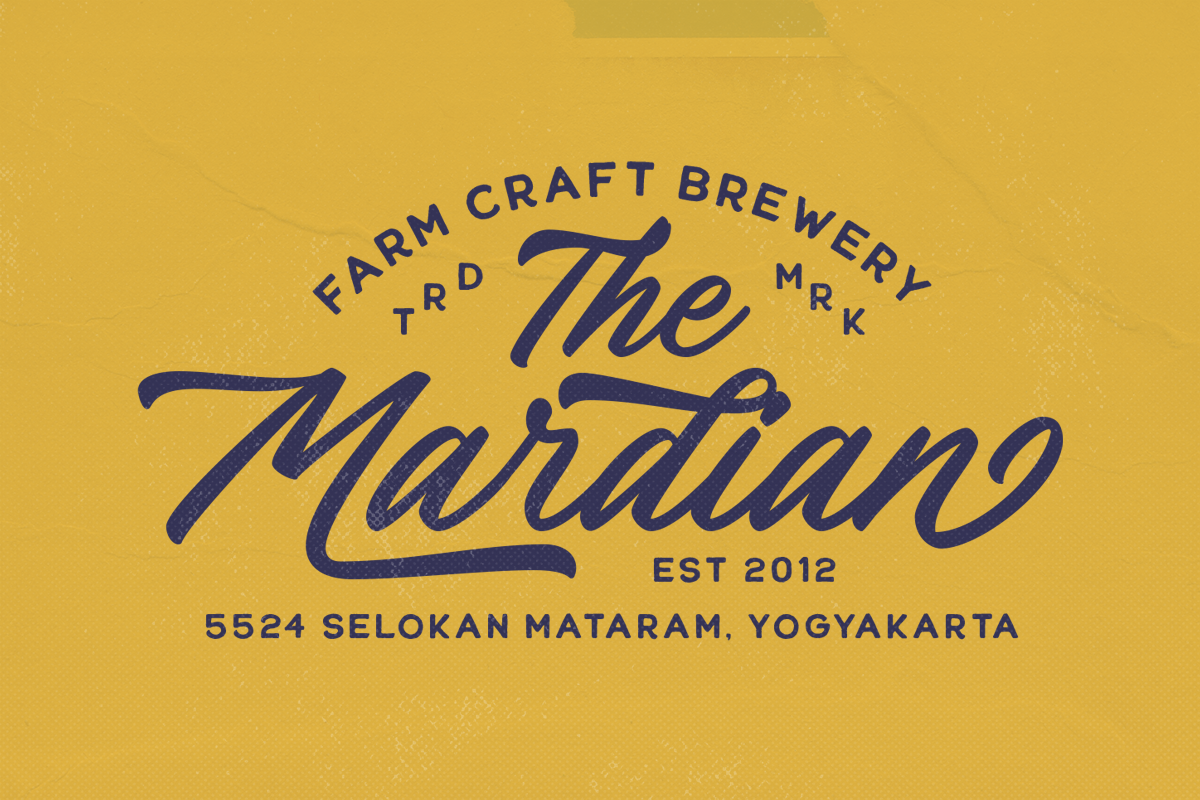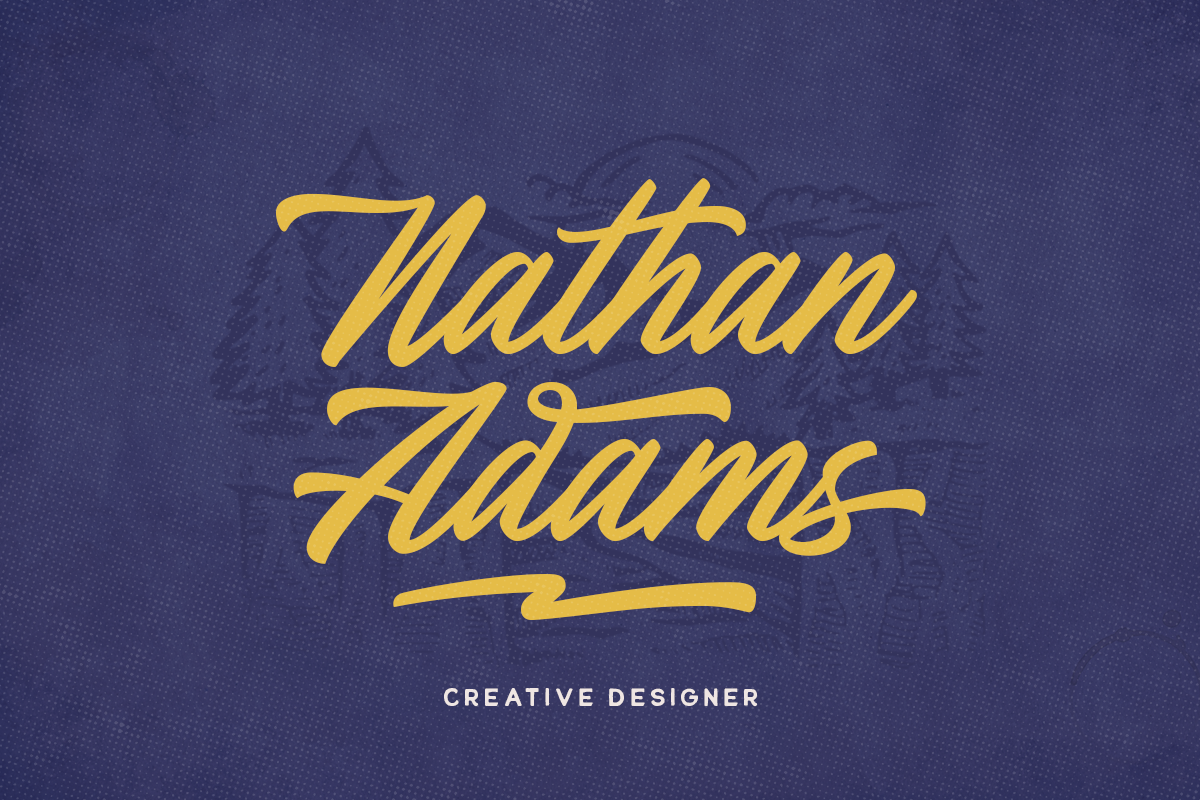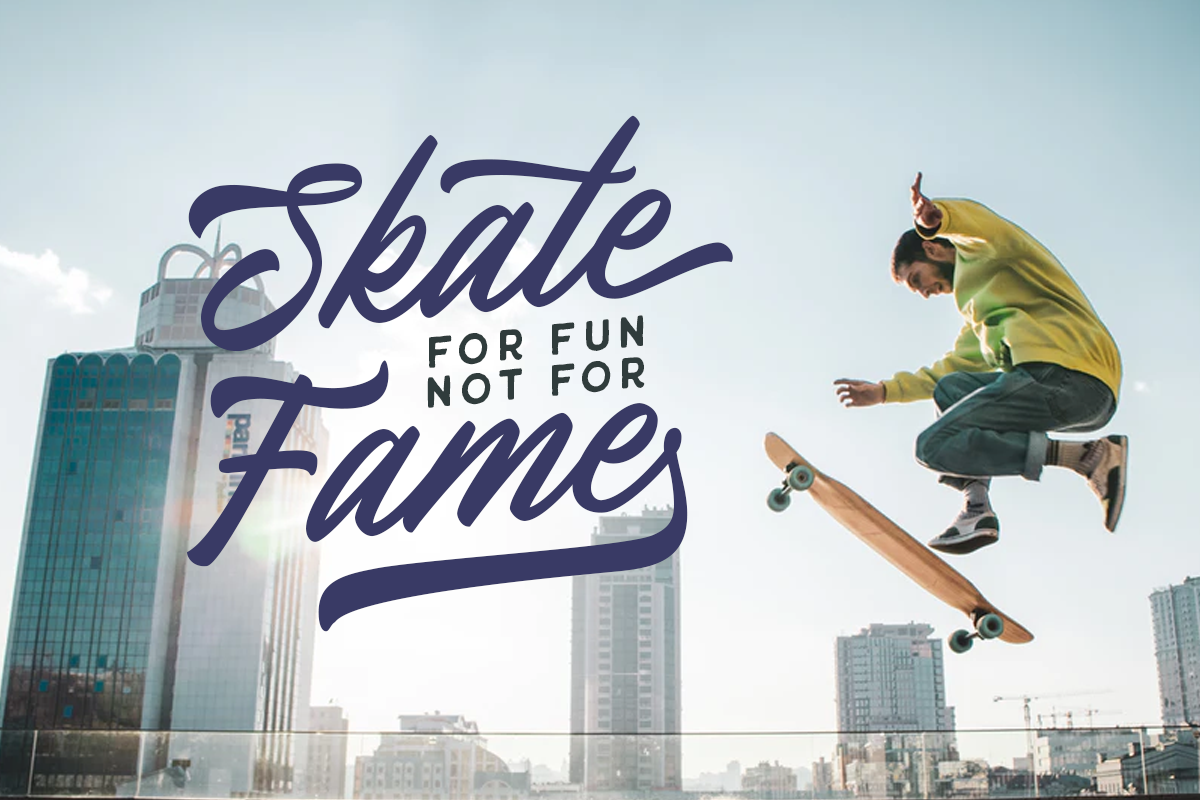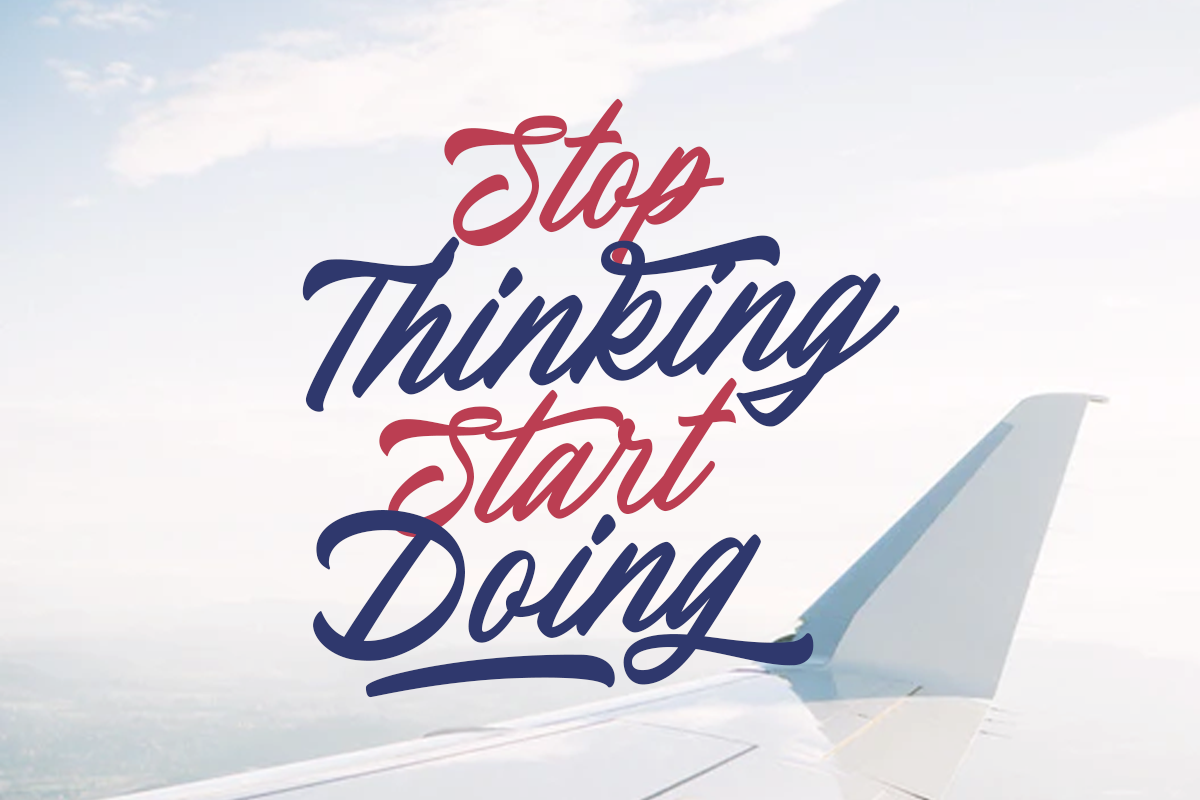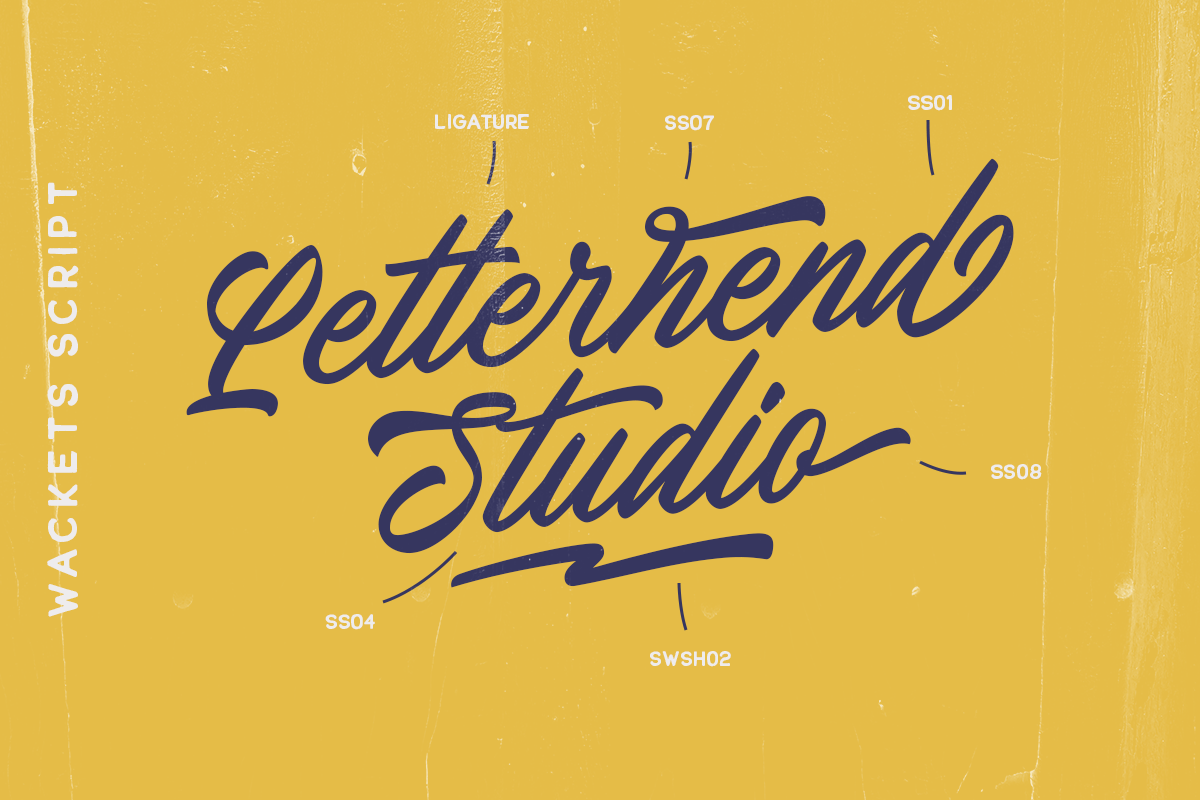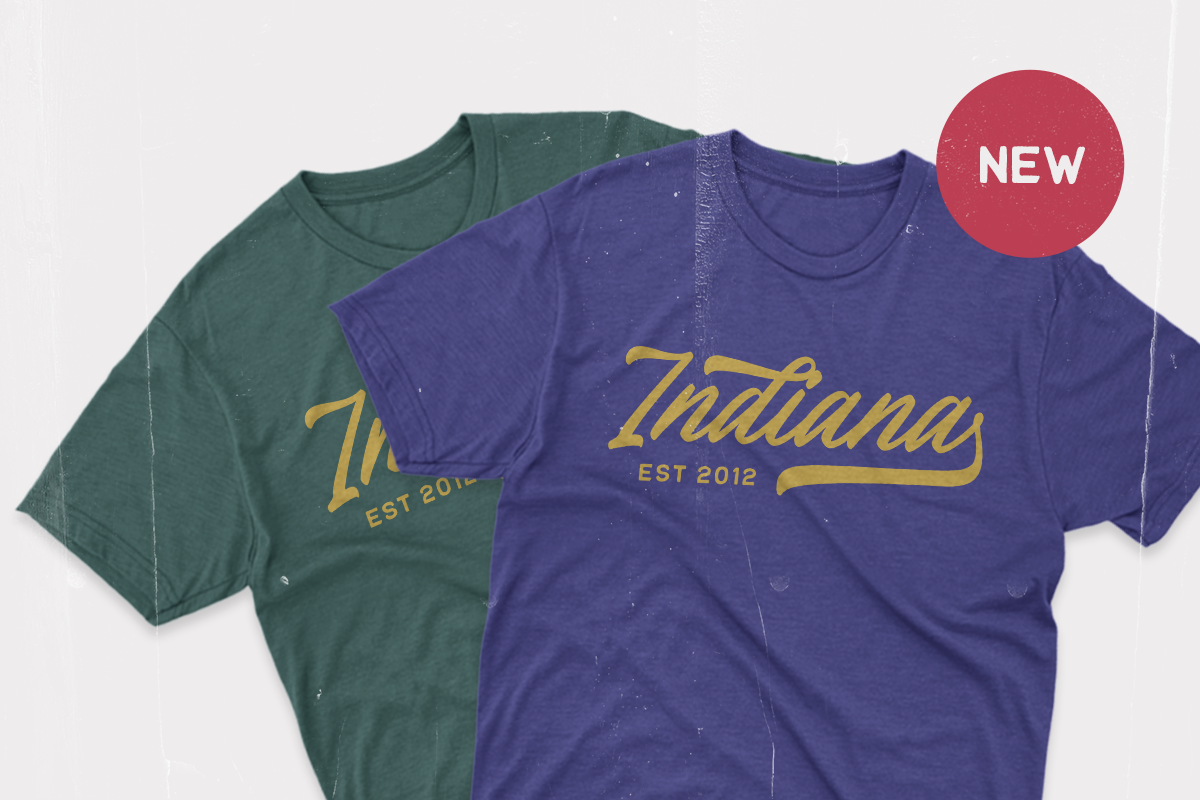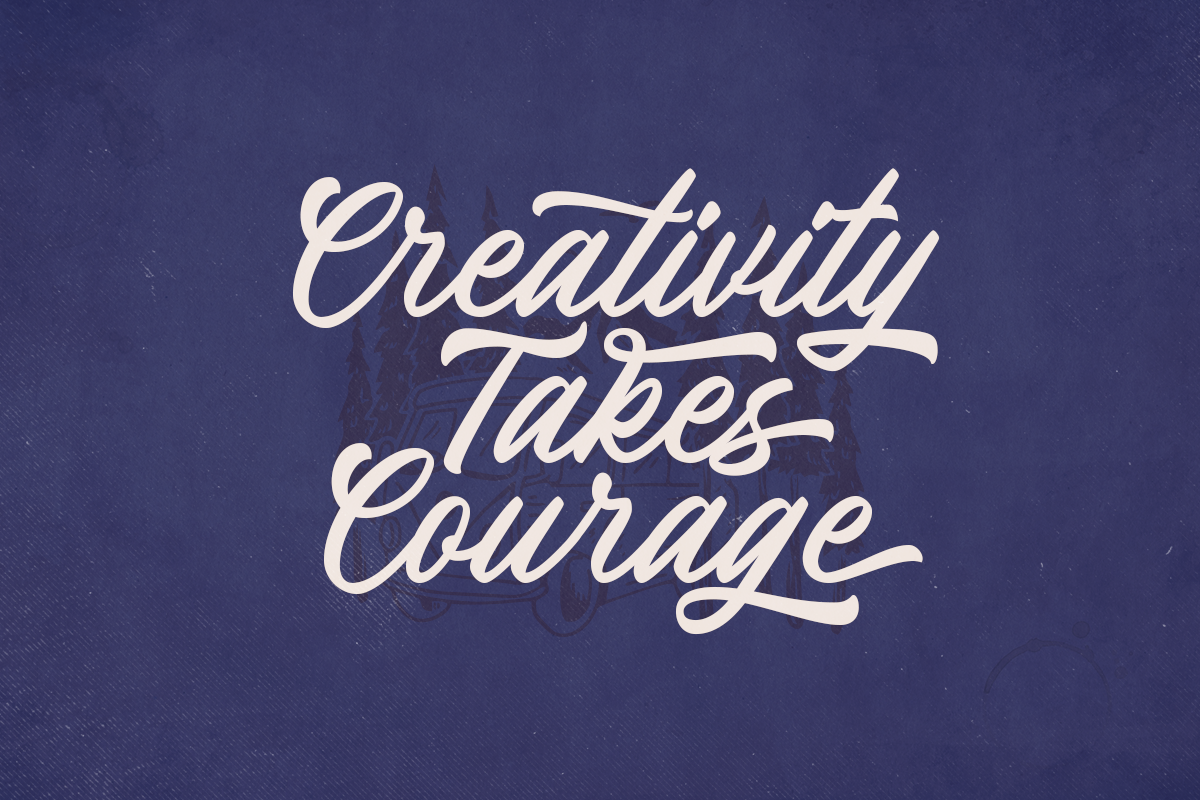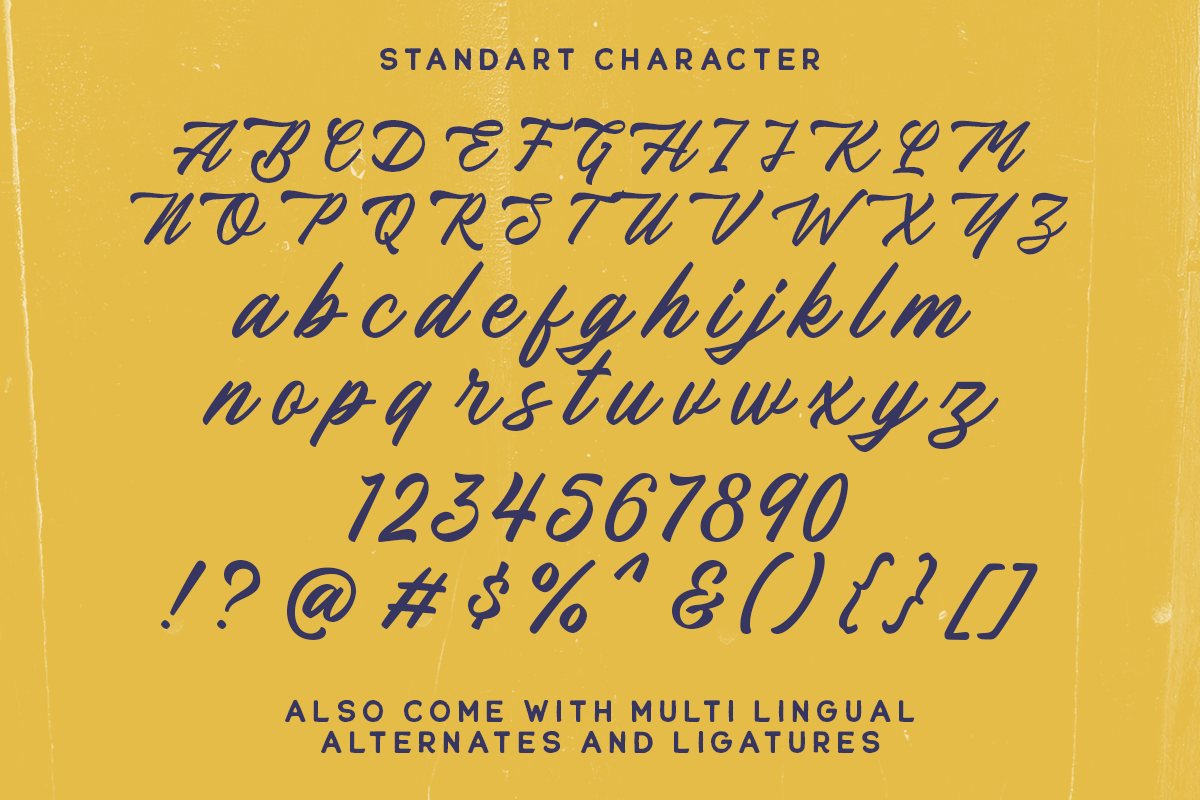
The Wackets - Modern Script
Wackets is a standout script with a touch of vintage look and feel. This type of font perfectly made to be applied especially in logo, headline, signage and the other various formal forms such as invitations, labels, logos, magazines, books, greeting / wedding cards, packaging, fashion, make up, stationery, novels, labels or any type of advertising purpose.
- alternates / swashes and ligatures